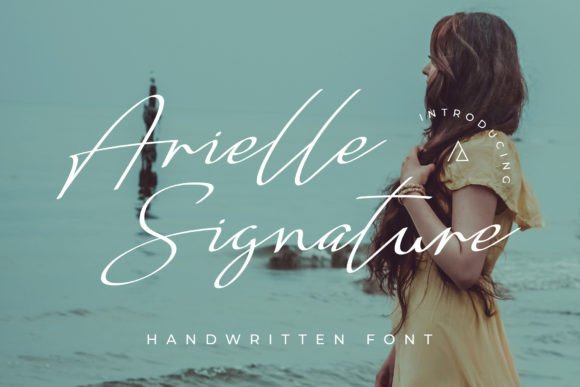
The Hunt for the Perfect Signature Font: Discovering Arielle Signature
I still remember the design project that led me to Arielle Signature. I was working on a branding project for a luxury wedding planner, and I needed a font that would capture the elegance and sophistication of their high-end events. I spent hours scouring the internet for the perfect signature font, but nothing seemed quite right. That was until I stumbled upon Arielle Signature, a beautiful handwritten typeface that has since become a staple in my design toolkit.
Arielle Signature: A Beautiful Handwritten Typeface
Arielle Signature is a stunning handwritten font that features calligraphic script elements with mixed width strokes and looping characteristics. These elegant features give Arielle a unique and sophisticated feel that’s perfect for adding a touch of luxury to your designs. Whether you’re creating wedding invitations, branding materials, or social media graphics, Arielle Signature is sure to impress.
What I Love About Arielle Signature
• ✨ Beautifully crafted calligraphic script: Arielle Signature features gorgeous calligraphic script elements that give it a truly elegant feel.
• ✅ Extensive character set: This font includes all uppercase and lowercase letters, numbers, and most common symbols and punctuation, making it perfect for a wide range of design projects.
• ✅ Excellent kerning: The kerning on Arielle Signature is superb, allowing the letters to flow smoothly from one to the next and creating a beautiful cursive effect.
• ✅ European language support: Arielle Signature includes support for European languages, making it a great choice for designers working on international projects.
While Arielle Signature is an excellent font, there are a few minor quirks to be aware of:
• ⚠️ Limited use in body text: Due to its script nature, Arielle Signature may not be the best choice for long blocks of body text. It’s better suited for headings, titles, and short paragraphs.
• 🤔 Some characters may require manual adjustment: While the kerning on Arielle Signature is generally excellent, some characters may require manual adjustment to achieve the perfect spacing.
The Story Behind Arielle Signature
Arielle Signature was created by a talented type designer who wanted to craft a font that would capture the elegance and sophistication of handwritten script. Inspired by the beautiful calligraphy of 18th-century Europe, the designer poured their heart and soul into creating a font that would be both beautiful and functional.
Q: Is Arielle Signature suitable for body text?
A: While Arielle Signature is a beautiful font, it’s better suited for headings, titles, and short paragraphs. For body text, you may want to consider a more traditional serif or sans-serif font.